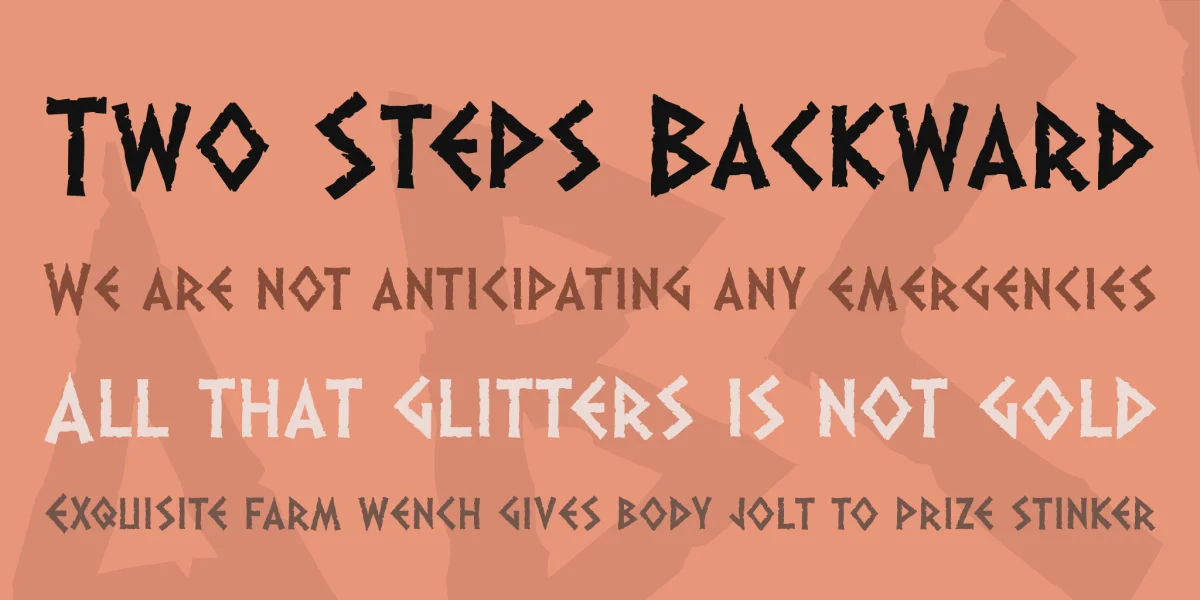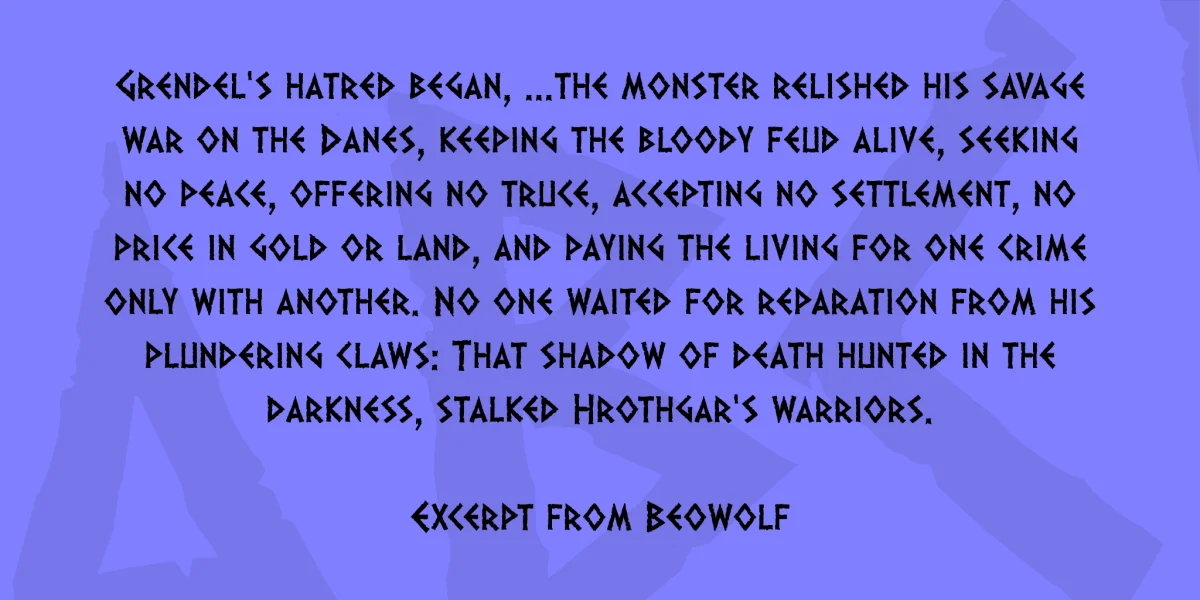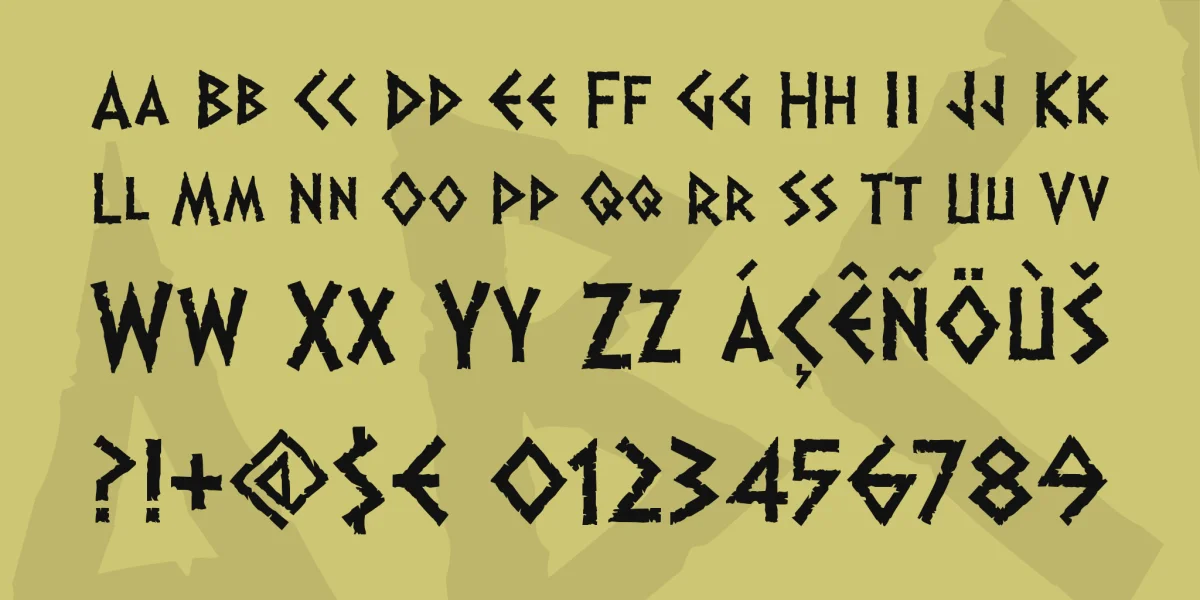
Dalek is a full font based on the lettering used in the Dalek Book of 1964 and in the Daleks strip in TV21 comic, spin-offs from the UK science fiction TV show, Doctor Who. The font has overtones of Phoenician, Greek and Runic alphabets.